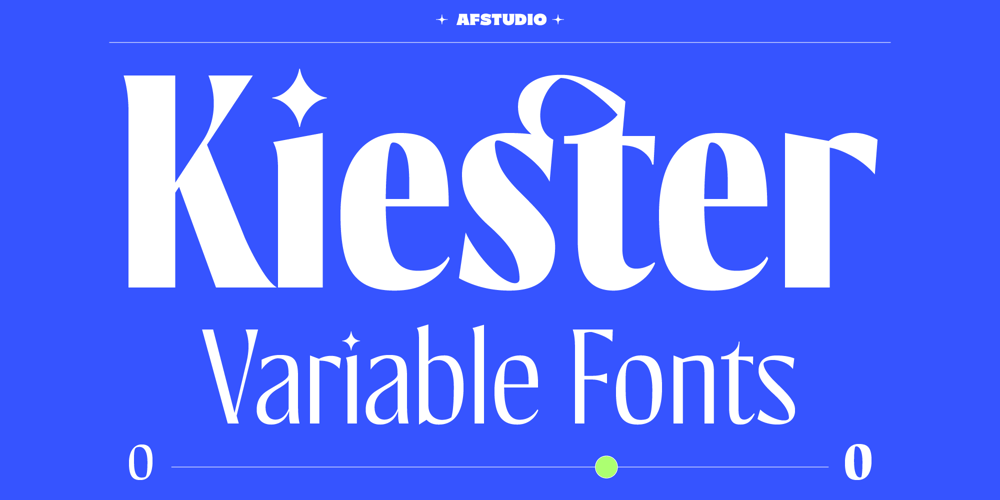
Kiester Font Family was designed by Adam Fathoni Haris and published by Adam Fathony. Kiester contains 6 styles and family package options. Kiester, A Display Typefaces with Variable Weight.Kiester is a modern elegant variable font. Basically this is a Sans with a small touch of serif on every letters. A Simplicity yet very legible with various width and weight that you can explore, combine, create and help you designing something such as Poster, Headlines, Logotype, Branding, and etc.In a Total of 5 Style Font even more if you are using the Single Files Variable, you can slide the weight on the sweetest spot of Kiester.Language Support : Afrikaans, Albanian, Asu, Basque, Bemba, Bena, Catalan, Chiga, Cornish, Danish, Dutch, English, Estonian, Faroese, Filipino, Finnish, French, Friulian, Galician, Ganda, German, Greek, Gusii, Icelandic, Indonesian, Irish, Italian, Jola-Fonyi, Kabuverdianu, Kalenjin, Kinyarwanda, Low German, Luo, Luxembourgish, Luyia, Machame, Makhuwa-Meetto, Makonde, Malagasy, Malay, Manx, Morisyen, North Ndebele, Norwegian Bokmål, Norwegian Nynorsk, Nyankole, Oromo, Portuguese, Romansh, Rombo, Rundi, Rwa, Samburu, Sango, Sangu, Scottish Gaelic, Sena, Shambala, Shona, Soga, Somali, Spanish, Swahili, Swedish, Swiss German, Taita, Teso, Vunjo, Welsh, Western Frisian, Wolof, Zulu